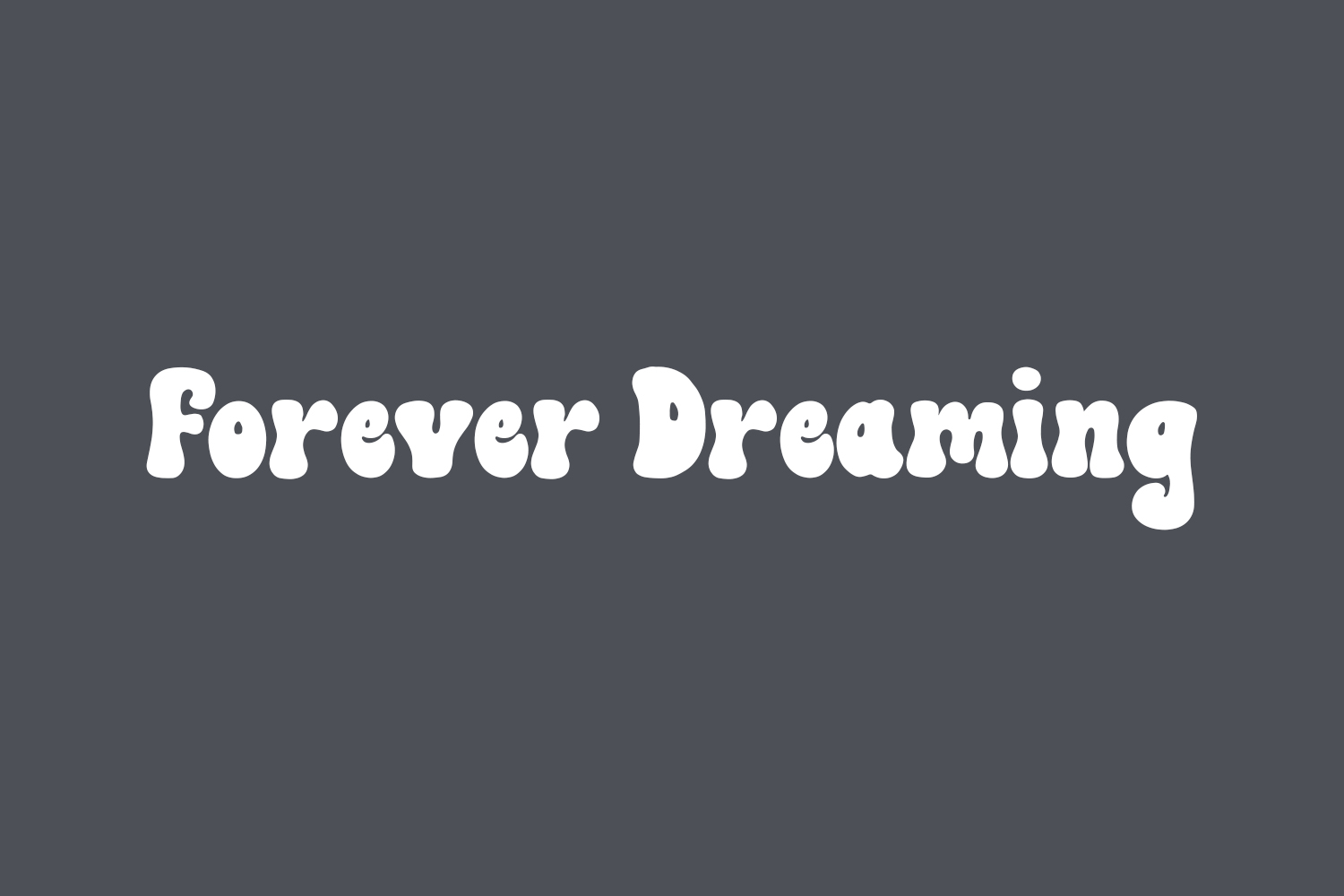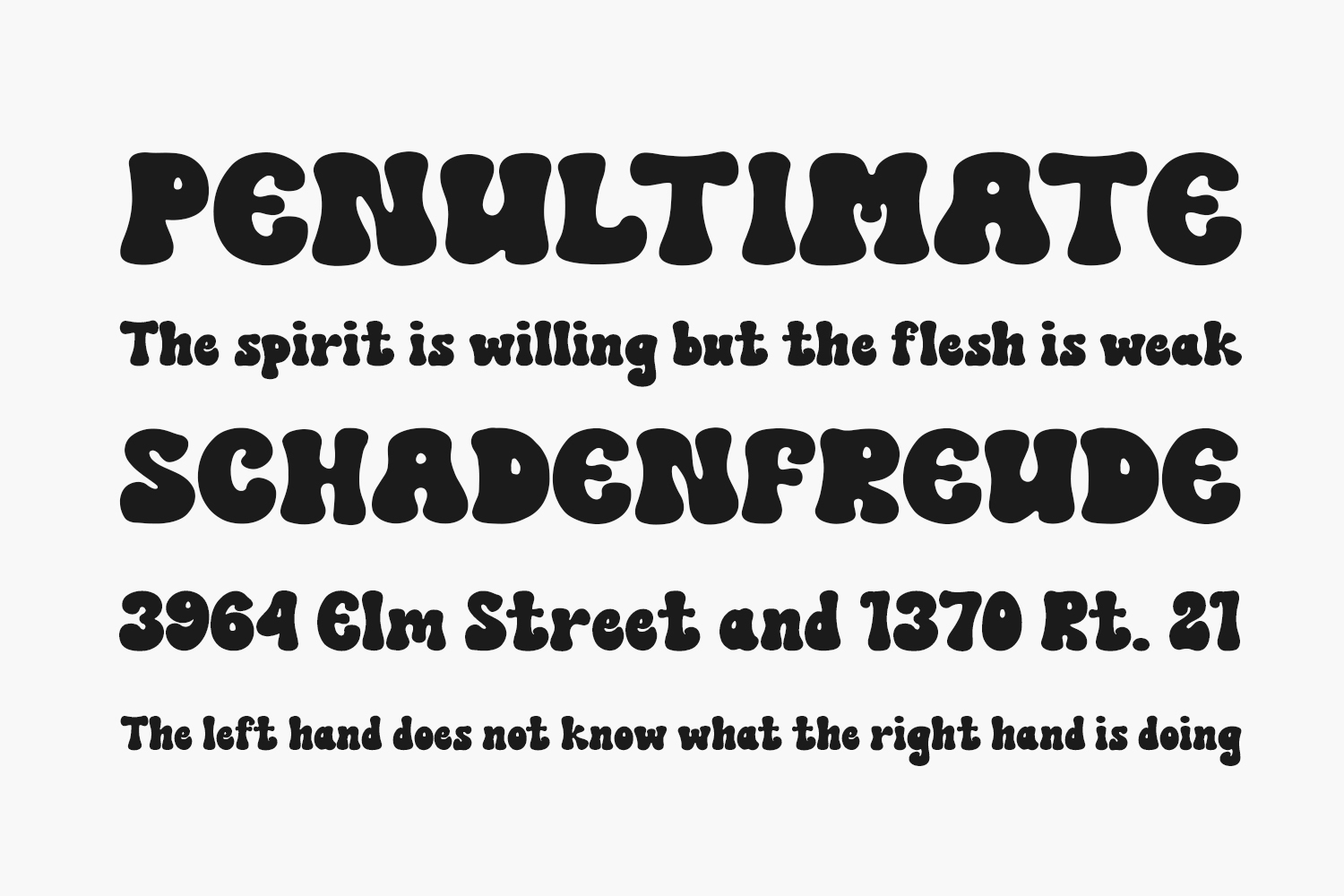
Forever Dreaming Free Font is an endearing vintage-inspired display font with a groovy twist. This font’s charming style makes it an ideal choice for branding, posters, t-shirts, stickers, wall art, and virtually any design project you envision. Forever Dreaming Free Font is free for personal use only. Please purchase the full version for commercial use.
Designed by Subectype & Orenari